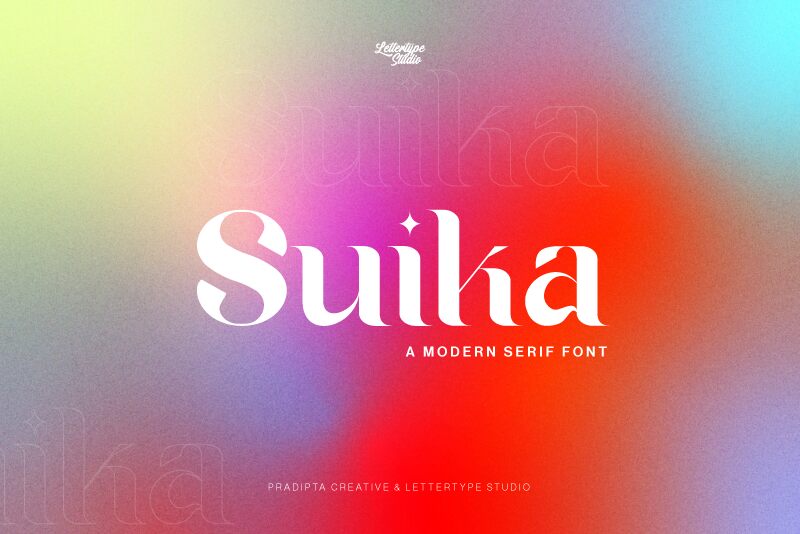
Suika DEMO
Suika, the modern serif semi-bold font by Lettertype Studio, is the perfect choice for projects that require a balance of sophistication and contemporary style. Its clean lines and elegant curves make it ideal for branding materials, such as logos, business cards and websites. At the same time, its semi-bold weight gives it enough presence to be used in titles or headings on posters or brochures. Suika's versatility also makes it a great option for editorial design, adding a touch of refinement to magazines or newspapers. Whatever your project may be, Suika is sure to elevate its visual impact with its timeless yet modern look.